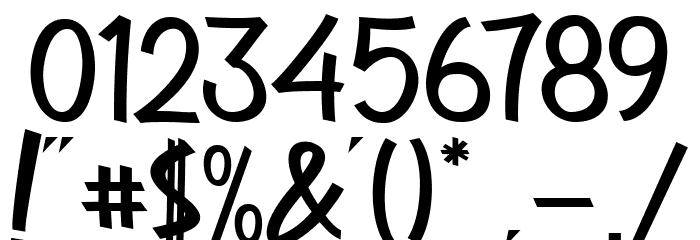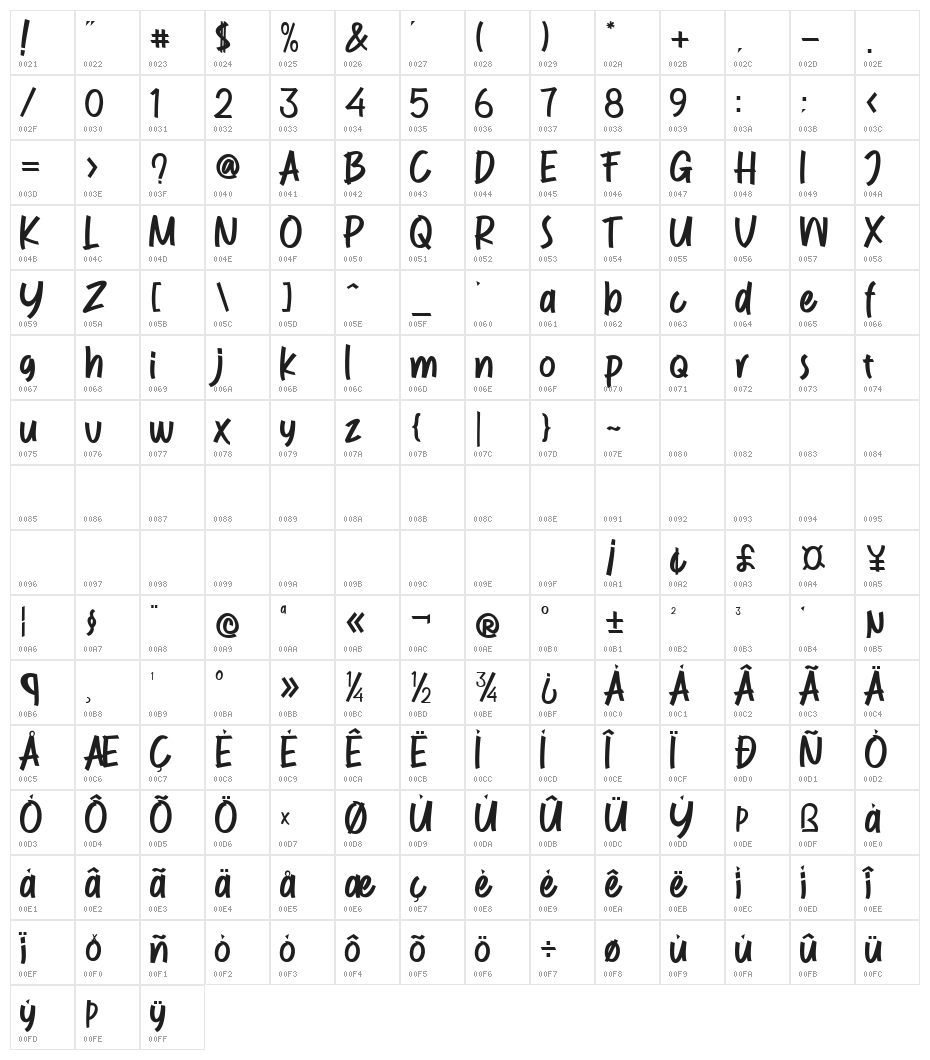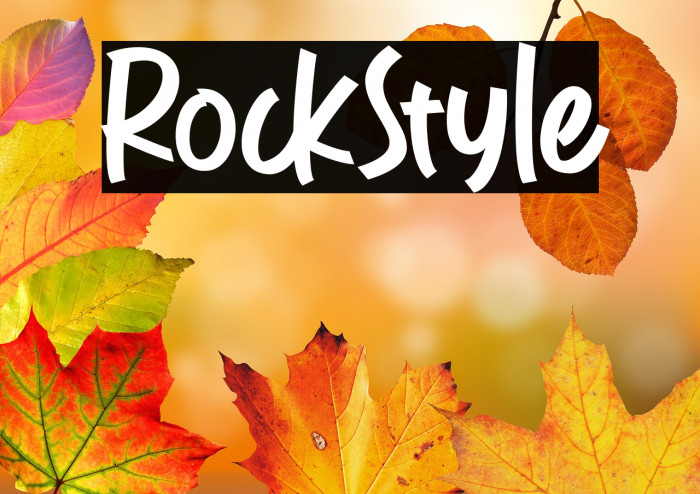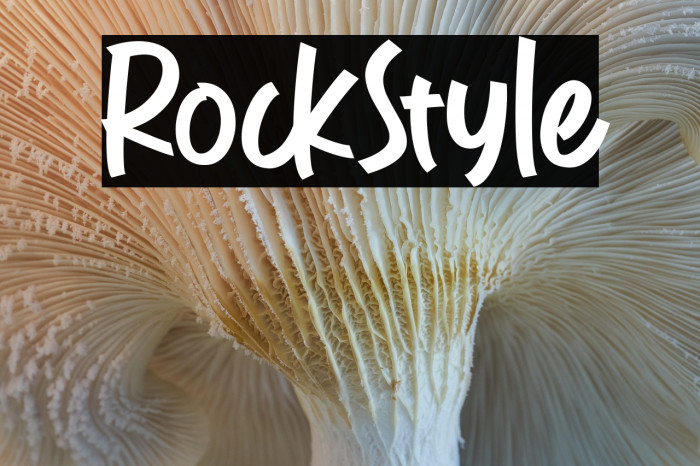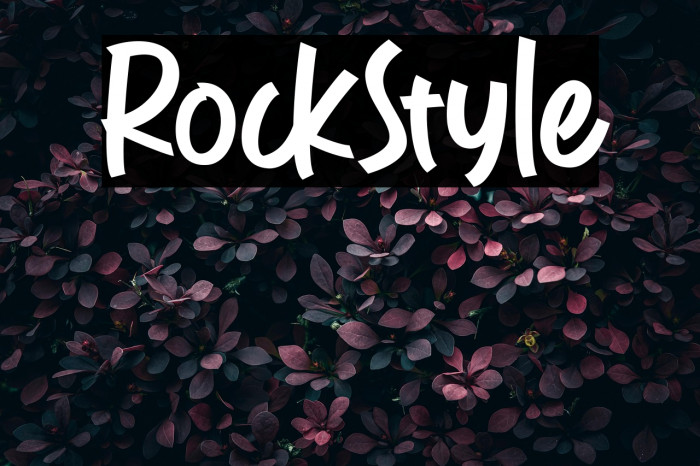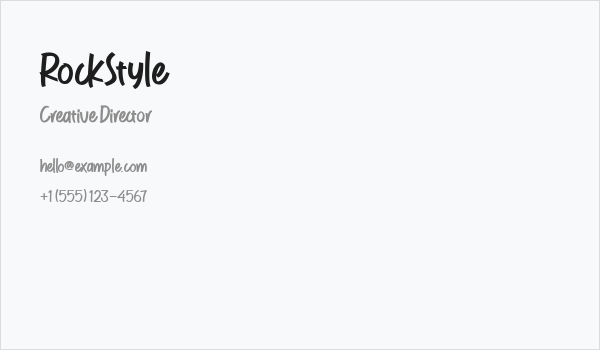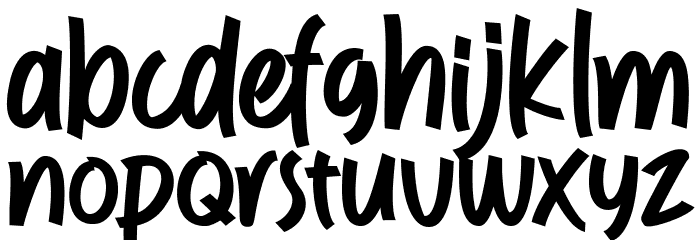
RockStyle Font
This font features a bold, energetic style with a hand-drawn appearance, characterized by irregular, playful strokes that convey a sense of movement and dynamism. The uppercase and lowercase letters maintain a consistent thickness, contributing to a cohesive look. The numbers and special characters follow the same lively design, making the font suitable for creative and informal applications. Its unique style is reminiscent of graffiti or street art, with a modern twist that adds a touch of edginess. The overall impression is one of spontaneity and creativity, making it ideal for projects that require a bold and unconventional aesthetic.
| Proposed Projects | Ideal for posters, album covers, streetwear branding, and creative social media graphics. |